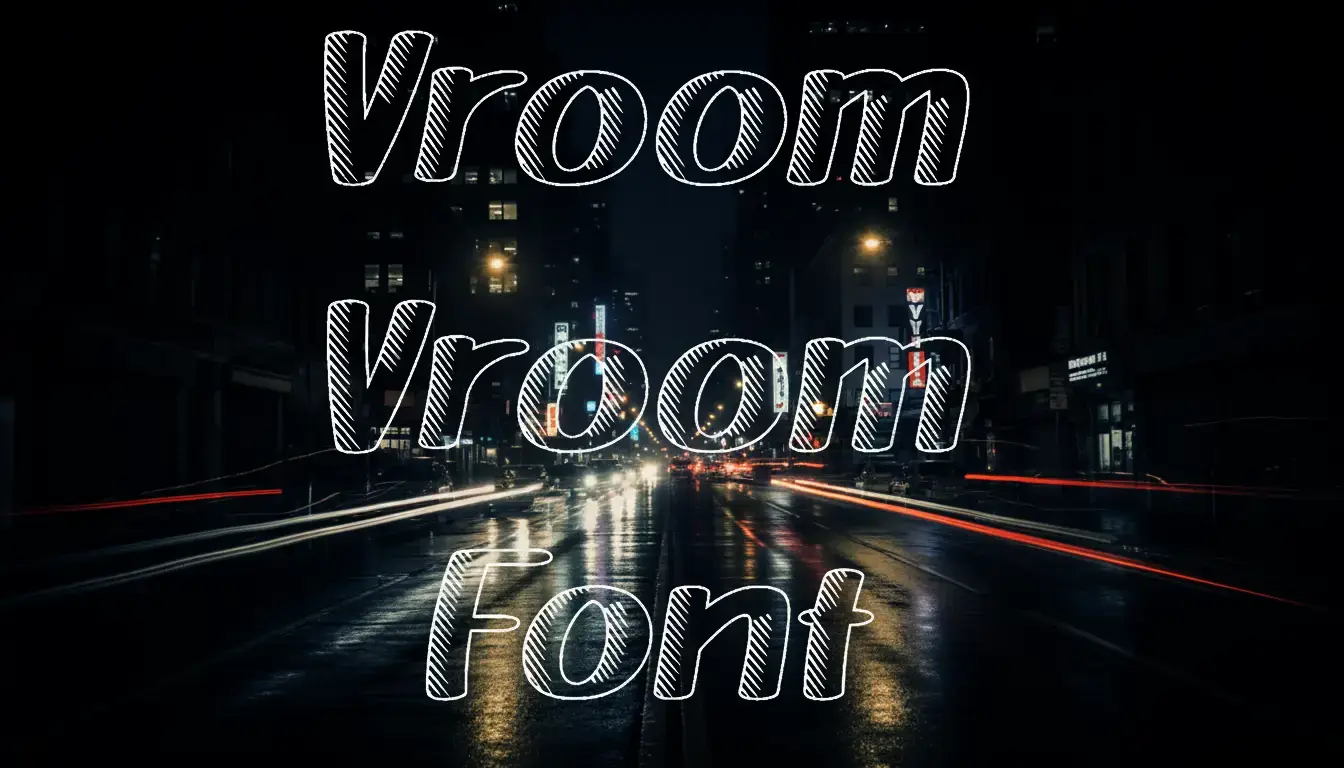
Vroom Vroom Font
Vroom Vroom
Vroom Vroom is a fancy font designed by Shalsha & Sarah SP and published by CalligraphyFonts.net. It's a decorative display font with plenty of personality, made to grab attention. It's a free download, and you can try it with your own text in the preview above first.
- Designer: Shalsha & Sarah SP
- Publisher: CalligraphyFonts.net
What You Can Type With Vroom Vroom
Vroom Vroom covers the full alphabet in upper and lowercase, plus all ten numbers, so you can set names, dates and prices without switching fonts. Common punctuation such as &, !, ? and @ is included as well. It also has the accented letters you need for Spanish, French, German, Portuguese and Italian.
Where Vroom Vroom Works Best
Designers usually reach for fonts like Vroom Vroom when they're making posters, logos and eye-catching headlines. Use it for one standout word or headline and let simpler fonts handle the rest.
Does Vroom Vroom support accented letters?
Yes. Vroom Vroom includes the accented letters needed for Spanish, French, German, Portuguese and Italian, so it works for more than just English.